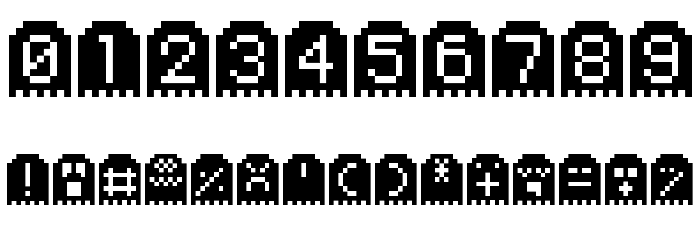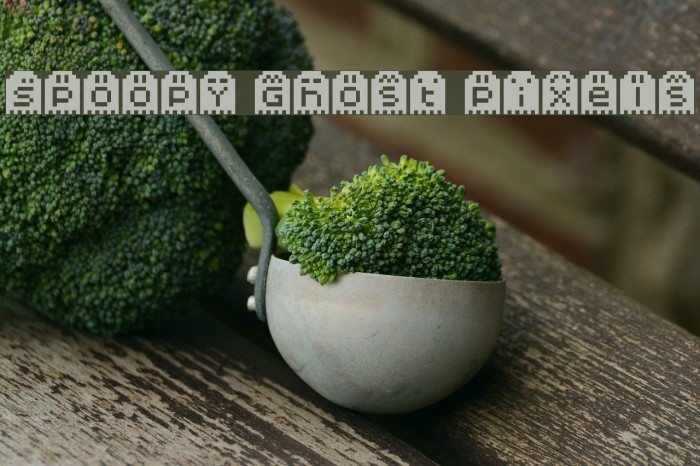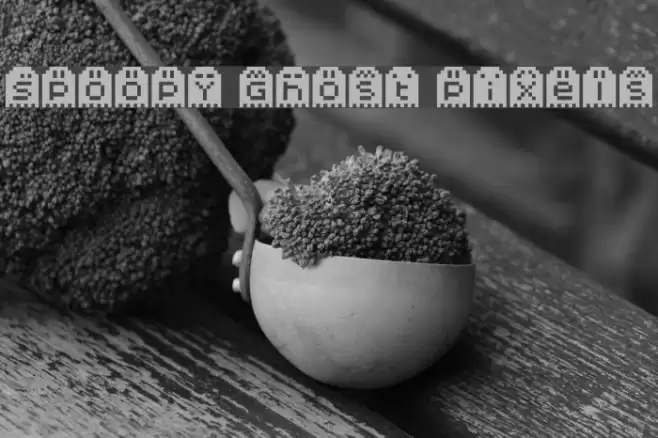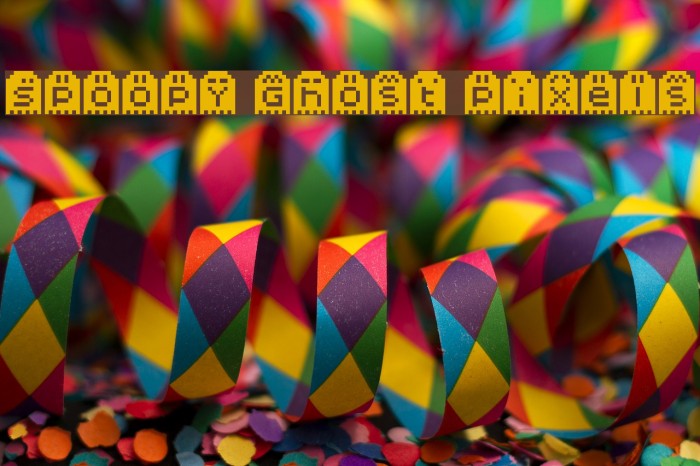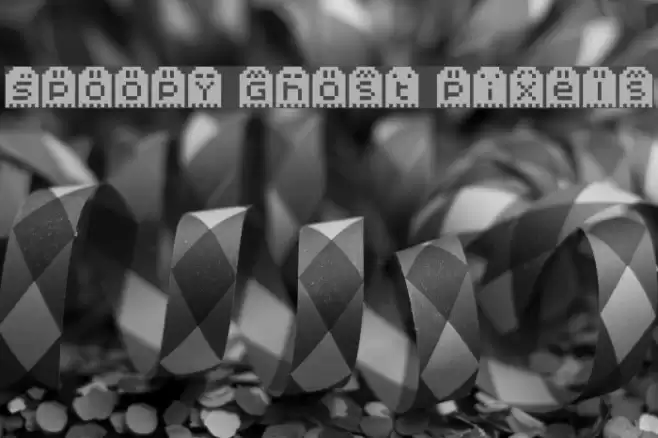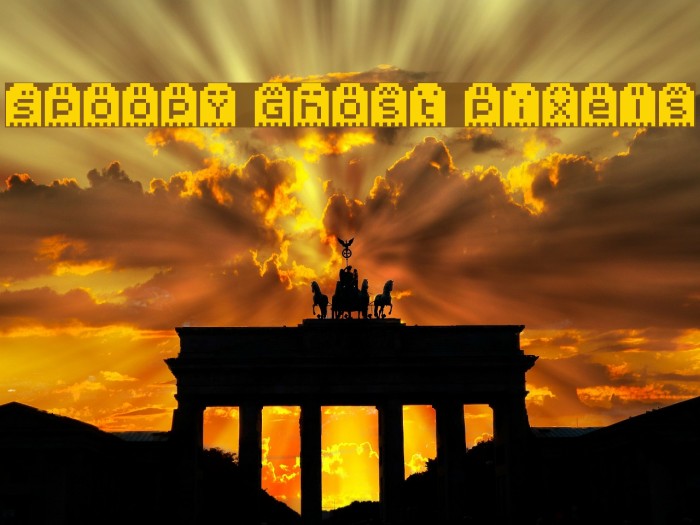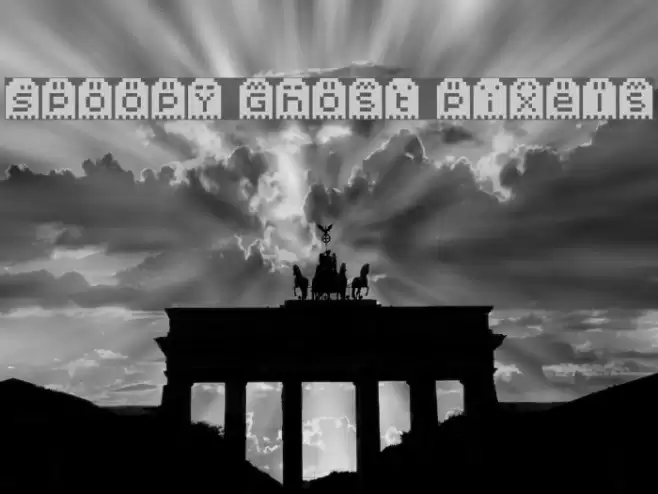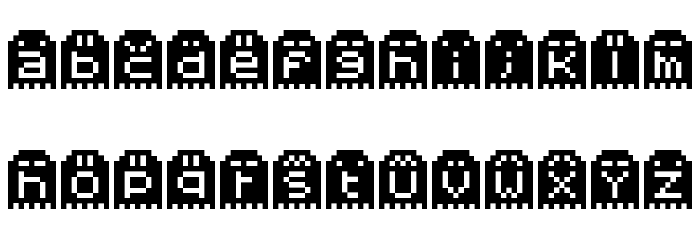
Spoopy Ghost Pixels Font
Spoopy Ghost Pixels Description
This playful and quirky font features characters designed to resemble pixelated ghosts, reminiscent of classic arcade games. Each letter and number is encapsulated within a ghostly silhouette, complete with pixelated edges that give it a retro, digital feel. The font is highly decorative, making it ideal for projects that require a fun and nostalgic touch. Its unique design captures the essence of vintage gaming aesthetics, making it perfect for themed events, Halloween decorations, or any creative project that aims to evoke a sense of playful nostalgia. The characters are uniformly styled, ensuring consistency across all letters and numbers, while the pixelated design adds a layer of charm and uniqueness.
A pixelated, ghost-themed decorative font inspired by classic arcade games from Uncategorized fonts.
- Proposed Projects: Ideal for Halloween-themed designs, retro gaming events, posters, and creative digital art projects.
- Overall Style: Vintage
- Use Case: Logos, Posters, Themed Events